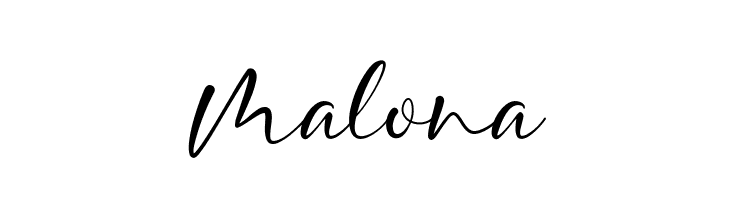
( Aspek hndz - www.behance.net/Aspek )
A bold, gothic-inspired font with sharp, angular lines and dramatic serifs.
A decorative font with parallel line detailing, offering a modern and sophisticated look.
A geometric, multi-line font with a modern and bold aesthetic.
A bold, three-dimensional font with a retro, geometric style.
A bold, three-dimensional font with a layered, geometric design.
( Fonts by Trappist Monk )
A bold, angular Gothic-inspired font with intricate detailing.
( Qkila - Quentin Aquila - www.creativefabrica.com/designer/qkila/ )
A bold, decorative font with geometric influences and a festive flair.
( Qkila - Quentin Aquila - www.creativefabrica.com/designer/qkila/ )
A bold, decorative font with a three-dimensional effect and festive style.
( Fonts by Klaus Johansen - www.listemageren.dK )
A collection of bold, intricate Mexican-inspired ornamental designs.
( Fonts by Aspek hndz )
A bold, angular font with an urban, graffiti-inspired style.
Ornate skull-themed decorative display font inspired by Mexican folk art.
A bold, decorative font with a playful, textured design and italicized slant.
A bold, decorative font with a Mexican-inspired, playful style and italicized slant.
A bold, decorative font with a festive and playful style.
A bold, decorative font with intricate patterns, inspired by traditional Mexican design.
A bold, italic, and decorative font with intricate patterns and a dynamic style.
A bold, decorative font with intricate patterns and a festive, three-dimensional style.
Intricate and bold motifs inspired by traditional Mexican art, featuring detailed cultural symbols.
A bold, decorative font with playful curves and high contrast, perfect for vintage-inspired designs.
A dynamic script font with smooth, flowing lines and a slight slant.